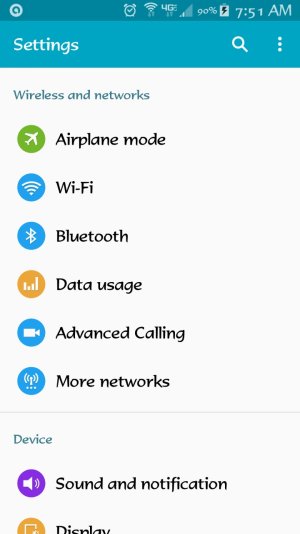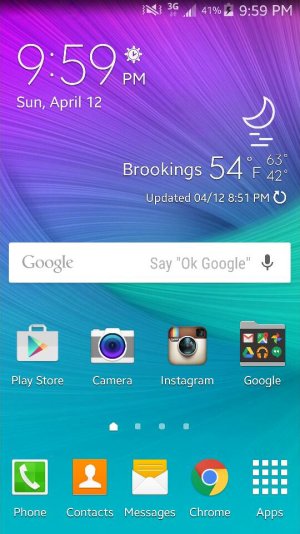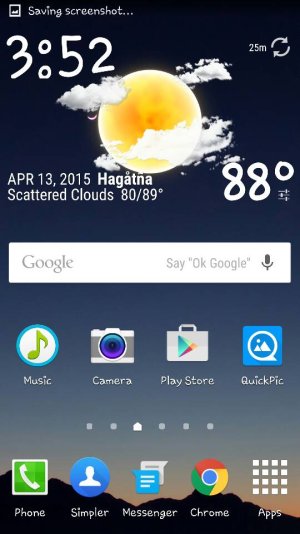
s5 fonts
who still uses samsungs 'default' and who uses'samsung sans'
any recommendations for fonts
screenshot to show the fonts
I have those fonts but never used them that much. My favorite is called Formal 436 BT. I use an app called iFont from the Google play store. it has tons of fonts that you can add to your phone. It also lets you manually add a font that you find on the Internet. You can search the Internet for free fonts and add them to your phone. The font you see in the screen shot is Formal 436 BT. Had it on my Blackberry and was able to add it on to my S5. For me it's an easy font to see and read but different from all the basic standard fonts. With my 60+ eyes it's a good font for me. :)
I use Samsung Sans, which I quite like. But there are endless fonts available in ROM Toolbox.
I use Samsung Sans. I like it far better than the tens of other fonts I've tried or the default.
Choco cookie